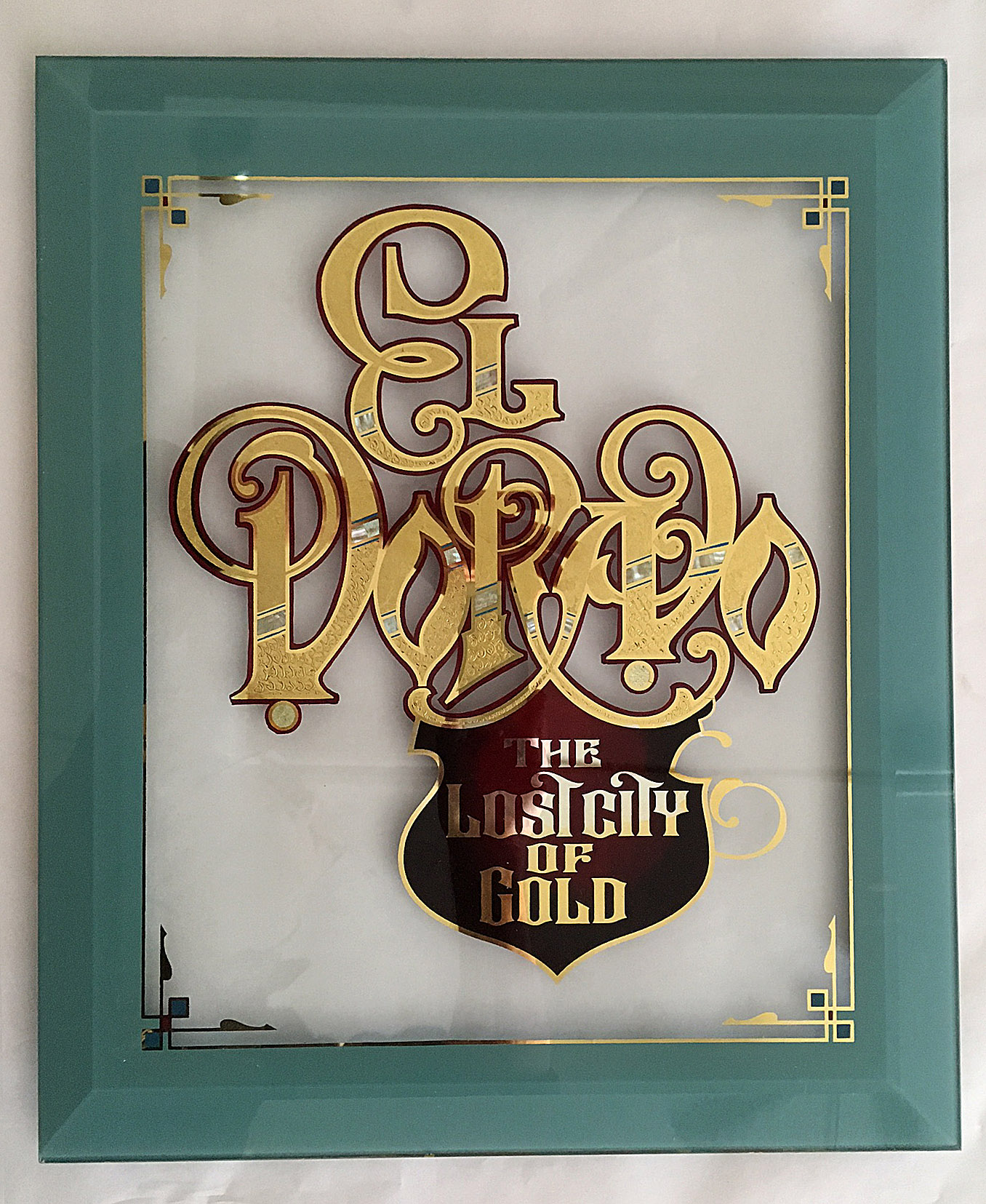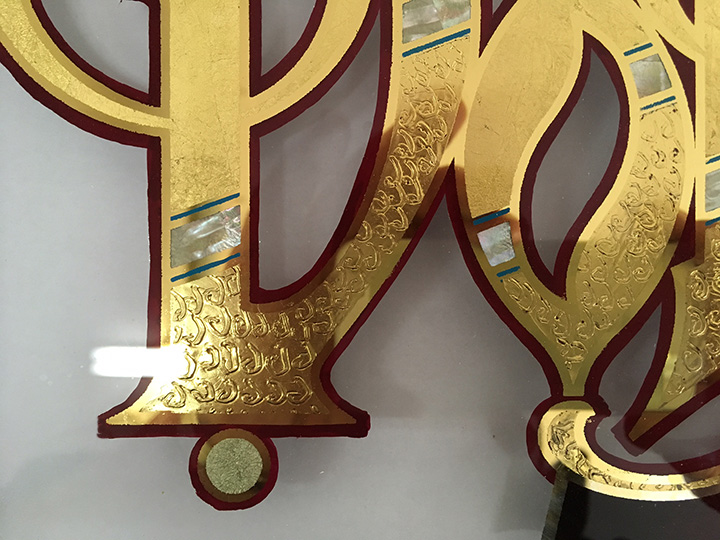
Was at a small heads meet at Phil Ghi's in March and made an interesting discovery. I had used embossing damar before and had usually left it over night to flash off and then gild with water. It so happened that there was a year between this process this time and instead of getting the usual semi gloss finish it was as bright as the outlines. To late smart....and just as I'm about to retire! You'll have to forgive the shaky outlines etc as it was at a letterheads meet with everything that is.
So you left the darmar to cure for a year.... and it gilt like glass. Cool.
Is the bevel real or painted shading? The dots... mica powder?
Either way good looking piece.
Hi Tyler....the dots are Mother of Pearl, the edge is actually bevelled glass. The part I was most curious about was what is the actual time required for the embossing to cure so you can get the bright water gild after? We know a year works ;=)
I had the same after about 6 months. The damar/res'ngel mix was embossed and then forgotten. When I remembered it I did a white gold water gild and it was like mirror on ripple glass. The gold was pretty shiny on both sides.